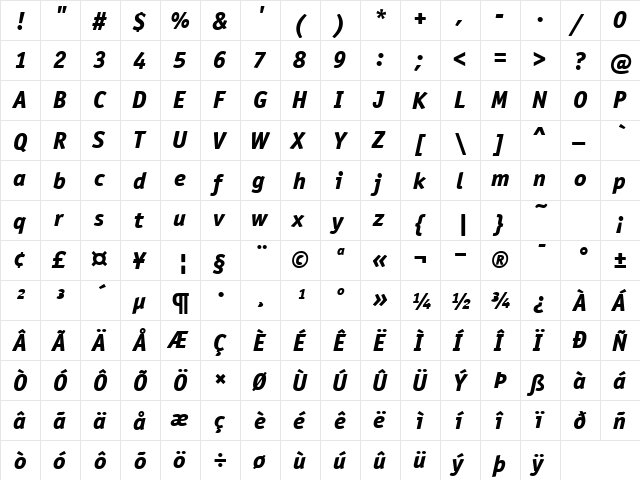
OfficinaSanITCTT ExtraBoldIta
ExtraBoldIta · International Typeface Corporation Erik Spiekermann/Ole Schaefer ·
Foundry International Typeface Corporation
DesignerErik Spiekermann/Ole Schaefer
Design Context for OfficinaSanITCTT Typeface
OfficinaSanITCTT is a composed and adaptable typeface that performs quietly and consistently across a wide range of design contexts. The heavy weight commands attention and anchors typographic hierarchies.